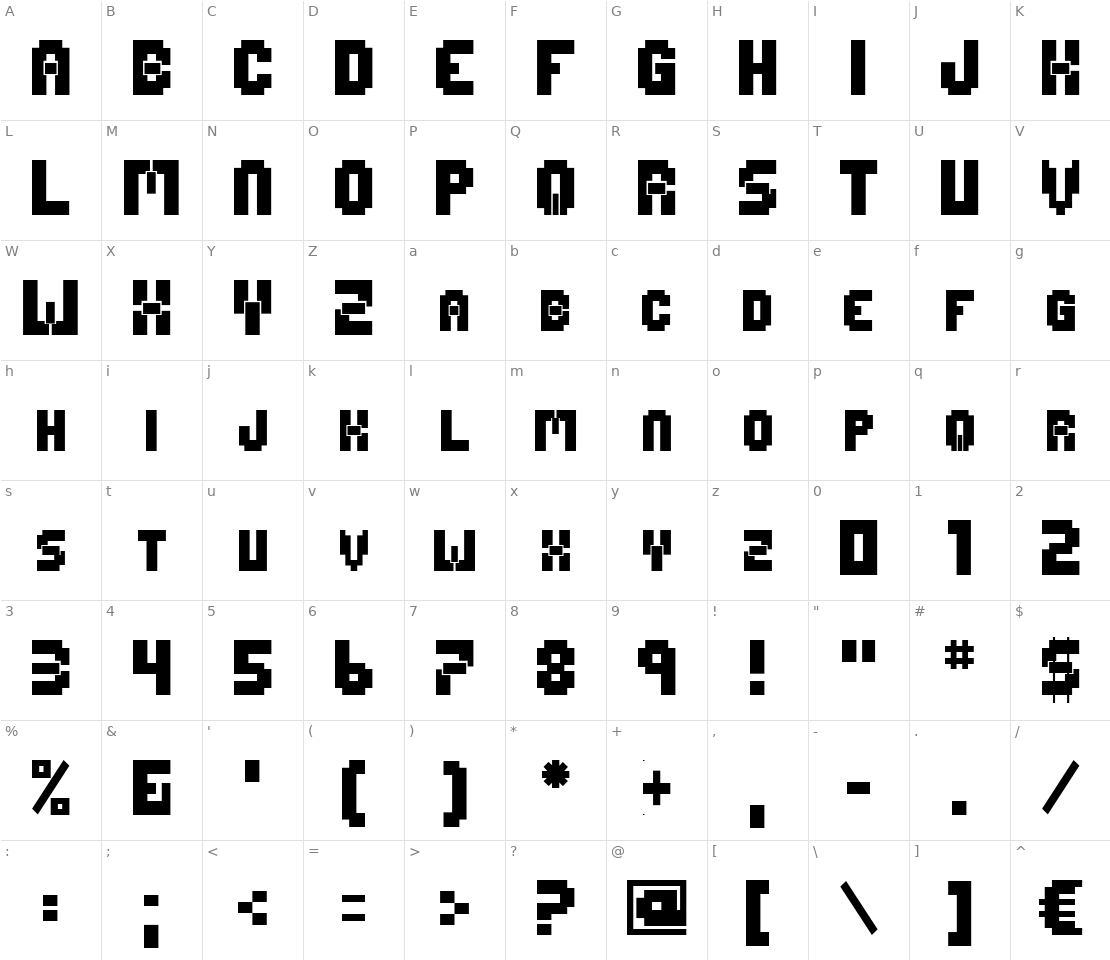
Magehunter
by Dieter Schumacher
Magehunter is a pixel-art display face from Dieter Schumacher that splits the difference between 8-bit retro gaming and medieval fantasy. The blocky letterforms have a distinctly old-school RPG quality, like text you'd find in a dungeon crawler's title screen or inventory menu. Best kept to headlines and display use where the chunky, low-res charm can do its thing.